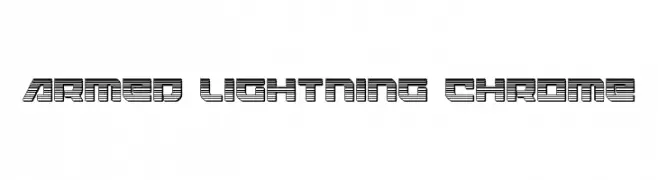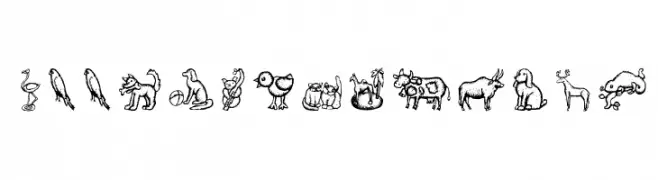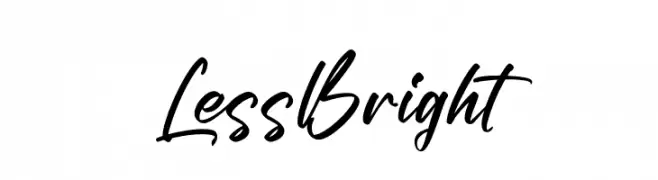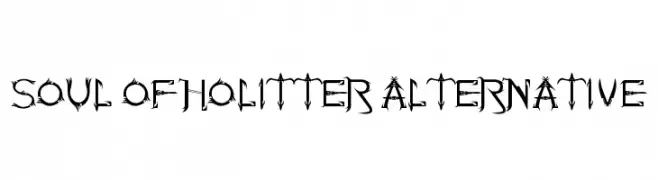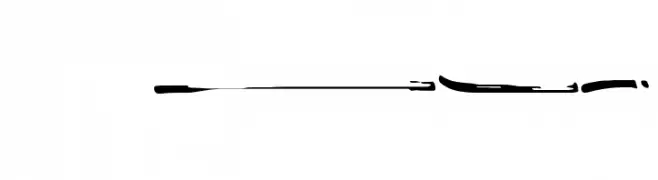
A bold, decorative font with patterned uppercase letters and modern lowercase.
A bold, futuristic font with a chrome-like, layered design.
A bold, playful font with a 3D effect and thick outlines, perfect for dynamic displays.
Hand-drawn woodcut animal illustrations in a decorative dingbat style.
A bold, decorative font with a layered, three-dimensional striped design.
A dynamic and fluid script font with elegant, flowing letterforms.
A bold, expressive handwritten font with dynamic strokes and a brush-like appearance.
A dynamic blackletter font with italicized, high-contrast strokes.